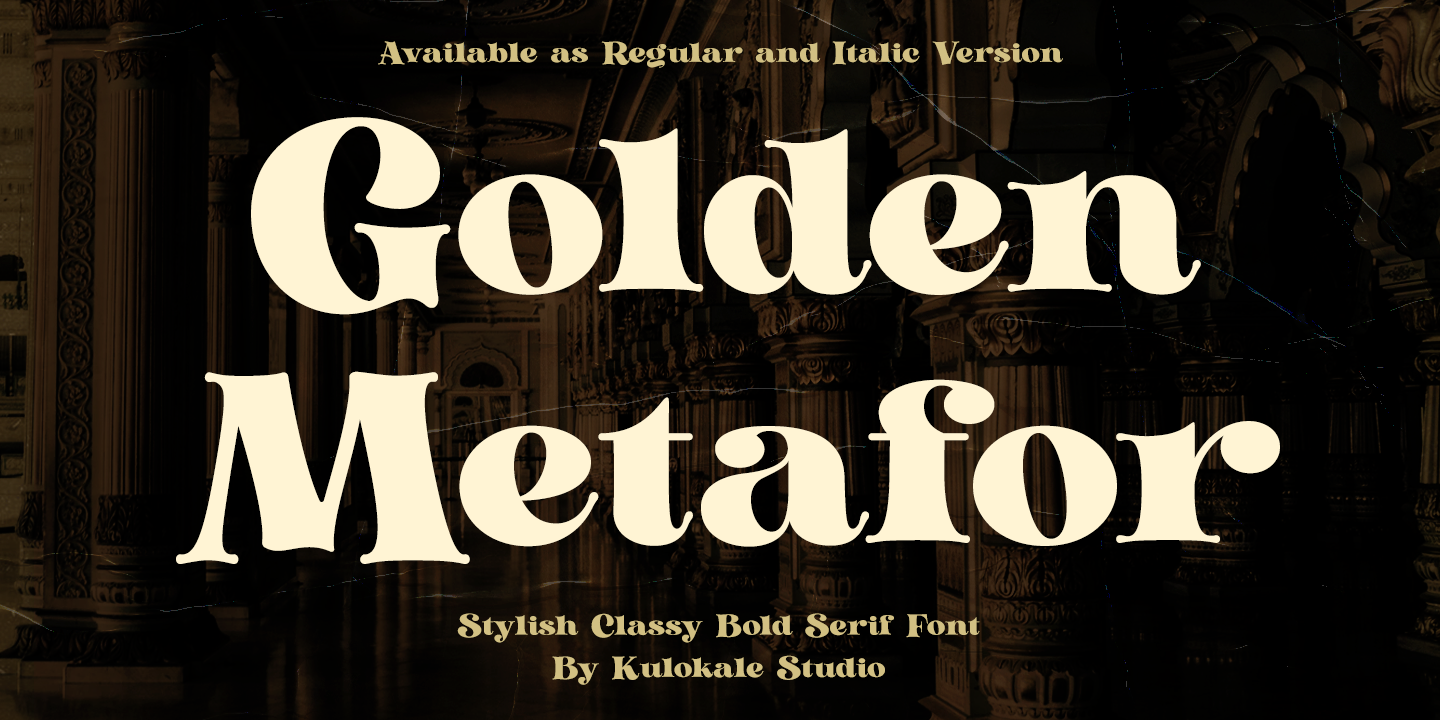
Golden Metafor Font is perfect for luxury jewelry branding, precious metals advertising, high-end award ceremonies, golden anniversary invitations, exclusive investment firm materials, premium champagne labels, metaphorical poetry publications, philosophical literature covers, aspirational coaching graphics, and transformational seminar designs.
What makes Golden Metafor Font so exciting is its luminous embodiment of symbolic transformation and golden wisdom through richly crafted letterforms that capture the profound beauty of metaphorical expression and the radiant power of transformative insights. The font's design philosophy celebrates the alchemy of meaning and the precious nature of symbolic communication, featuring lustrous proportions, enlightening curves, and metaphorical details that mirror the brilliant gleam of polished gold, the transformative power of meaningful metaphors, and the illuminating moments when abstract concepts crystallize into golden understanding. Each character shimmers with intellectual richness and symbolic depth, creating a visual language that instantly communicates wisdom, transformation, and the precious value of metaphorical thinking that turns ordinary concepts into golden insights and profound revelations.
The Golden Metafor Font family includes transformative variations: Regular, Bold, Light, Medium, Condensed, Extended, Italic, Luminous, and Symbolic styles. Each variation maintains the font's characteristic golden metaphorical essence while offering different levels of symbolic intensity and transformative detail for various luxury and philosophical design applications.
When searching for a typeface that embodies the essence of golden transformation and metaphorical wisdom, Golden Metafor Font Free Download represents the perfect fusion of symbolic richness with typographic brilliance that elevates any project to new dimensions of intellectual luxury and metaphorical appeal.
The brilliantly crafted letterforms of Golden Metafor Font demonstrate superior attention to symbolic design principles, featuring golden proportions, metaphorical spacing, and luminous curves that ensure optimal readability while maintaining the font's distinctive transformative character. Its versatile design adapts seamlessly from intimate philosophical texts to grand ceremonial displays.
Professional designers working on luxury brands, educational institutions, and transformational organizations particularly value the font's ability to convey wisdom, transformation, and symbolic sophistication. The typeface works exceptionally well for projects targeting intellectual audiences, luxury consumers, and anyone seeking to project golden positioning and metaphorical excellence.
The extensive OpenType features of Golden Metafor Font include symbolic alternates, transformative ligatures, and specialized metaphorical characters that enable designers to create authentic golden typography while maintaining the font's distinctive symbolic character throughout all design elements and transformational applications.